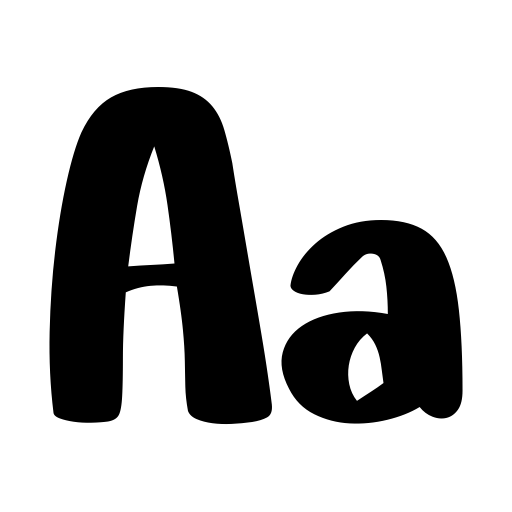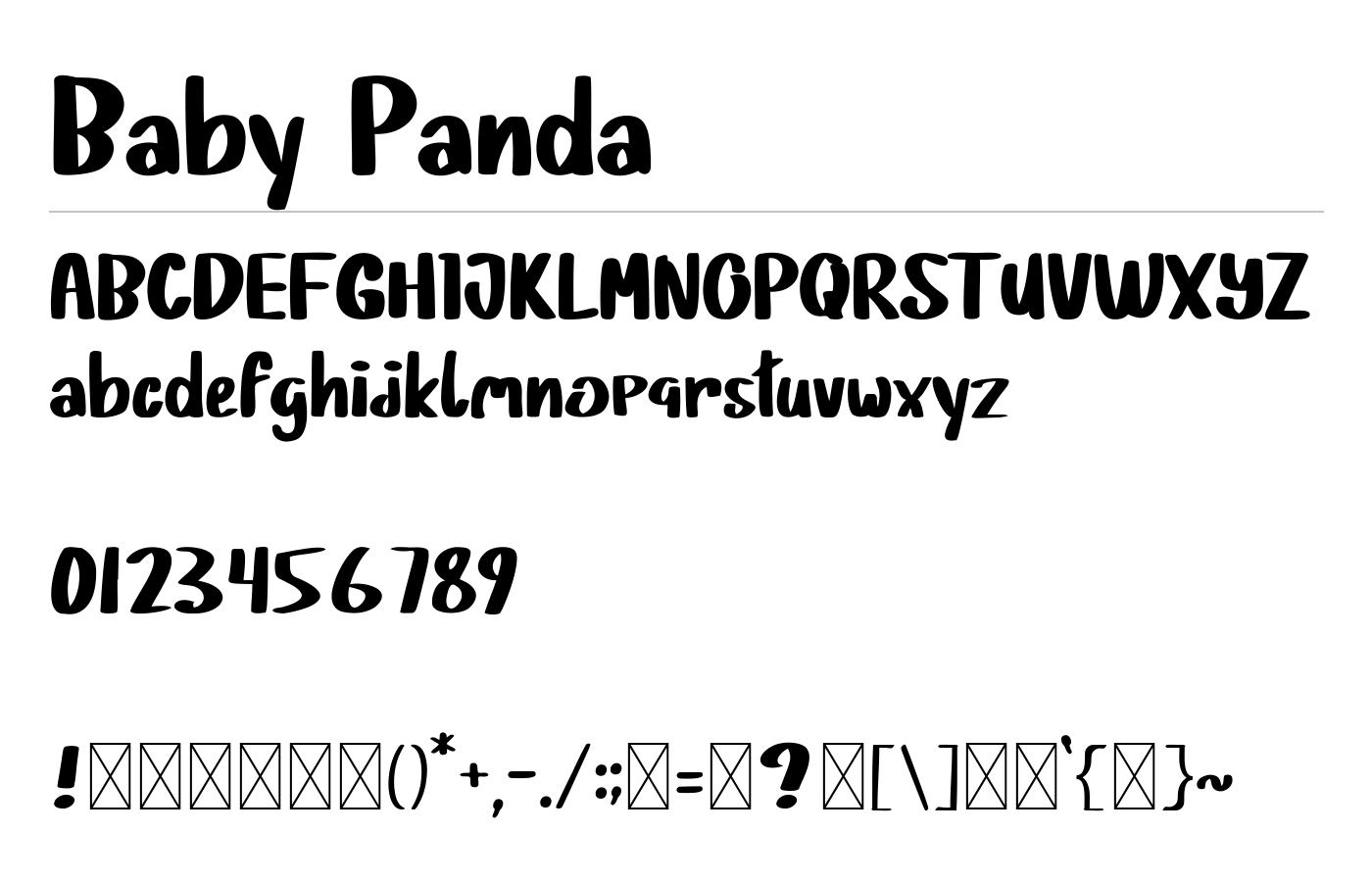
Baby Panda is a playful, rounded sans serif font with a bold weight and a friendly, hand-drawn feel. Its irregular, lively letterforms and slightly condensed width give it a charming, casual personality perfect for children's books, informal branding, and fun, approachable designs. This font works well for headlines and graphic projects that want to convey warmth and creativity.
| Designer | Doli Harahap & Daanya Harahap |